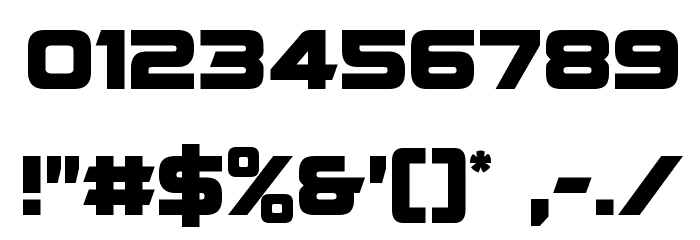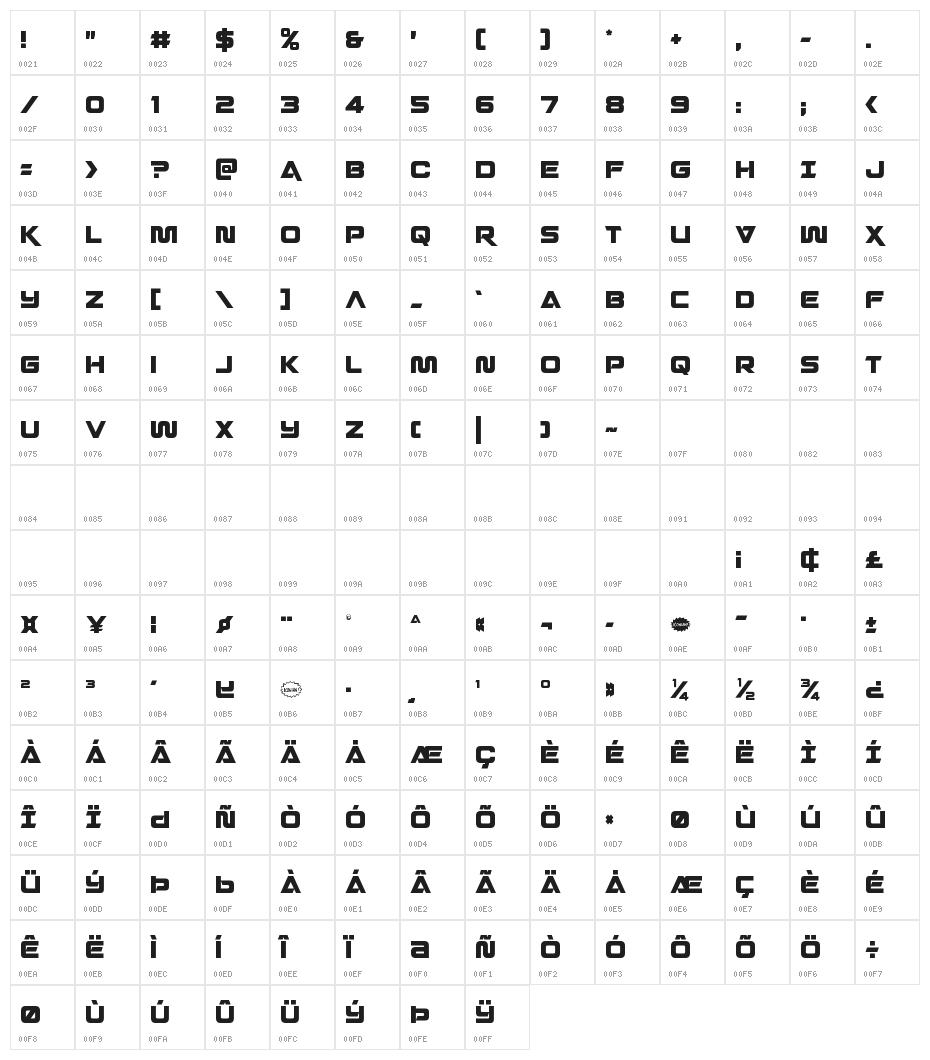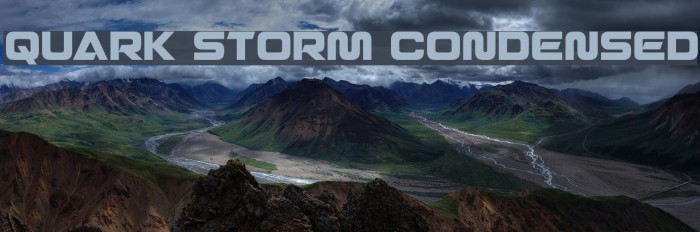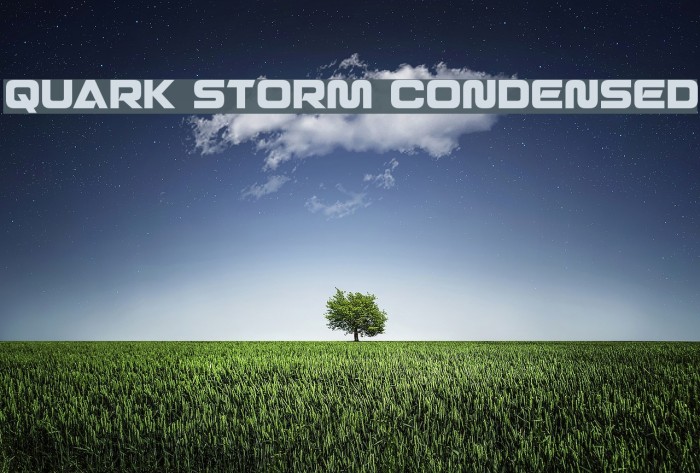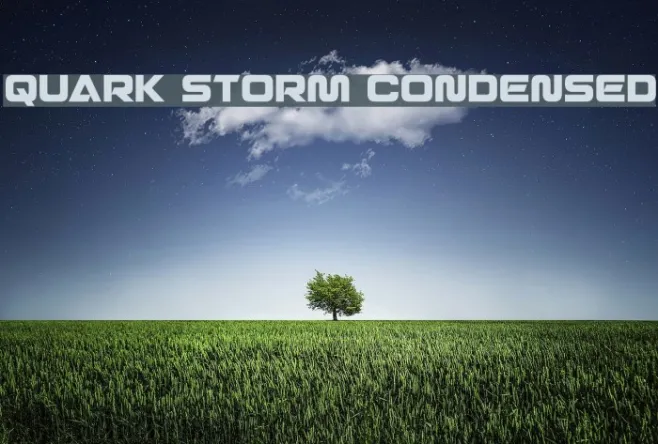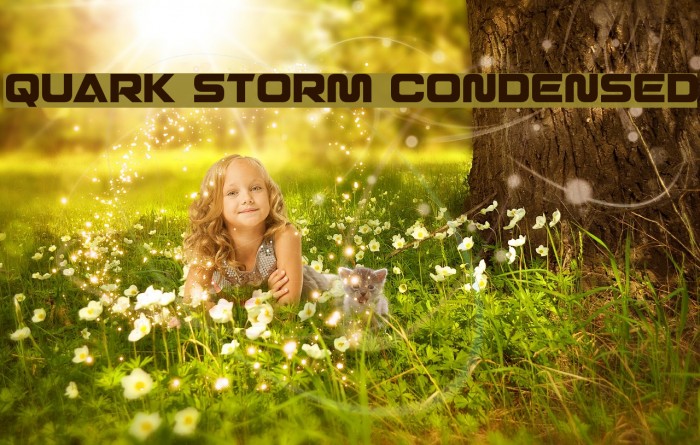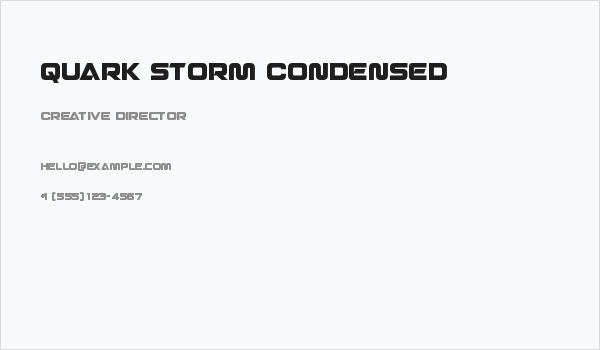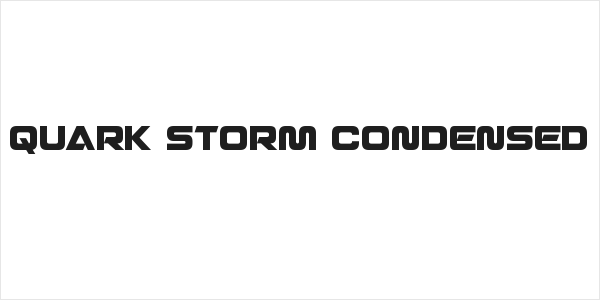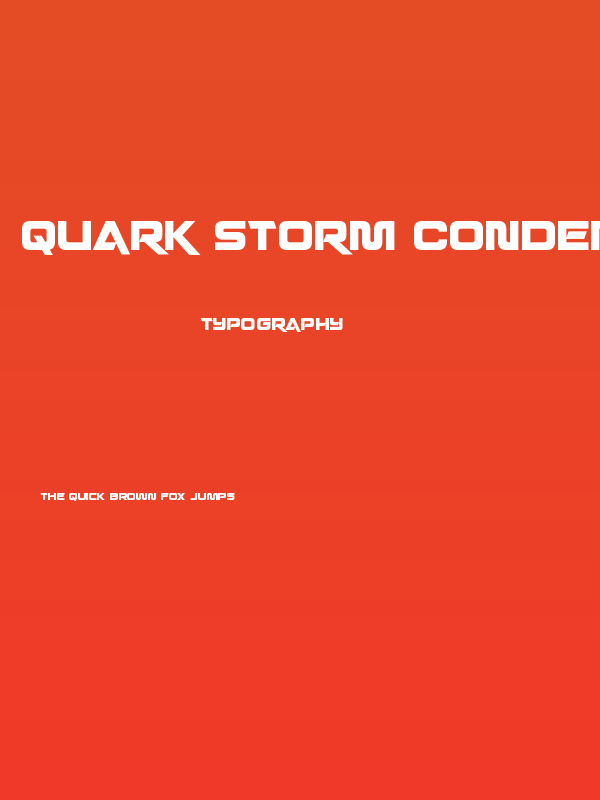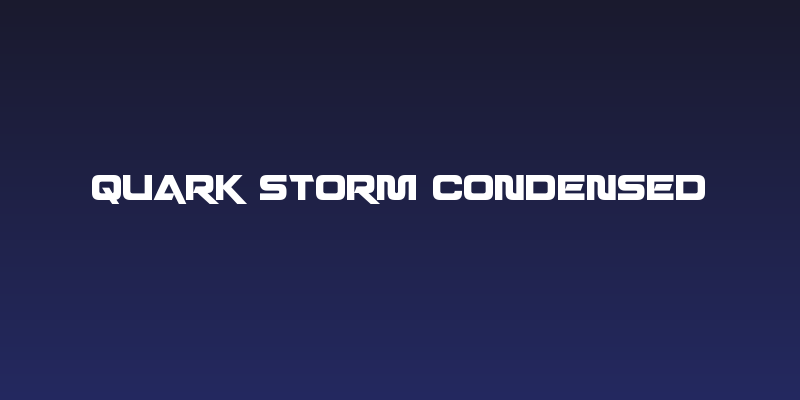
Quark Storm Condensed Font
Quark Storm Condensed Description
This font features a bold and futuristic design with a condensed width, giving it a strong and impactful presence. The characters are angular and geometric, with sharp edges and a uniform stroke width that conveys a sense of modernity and technological sophistication. The uppercase and lowercase letters maintain a consistent style, while the numerals and special characters are designed to complement the overall aesthetic. This font is ideal for projects that require a bold and modern look, such as technology branding, sci-fi themes, or dynamic headlines.
| Proposed Projects | Ideal for technology branding, sci-fi themes, dynamic headlines, and modern advertising. |